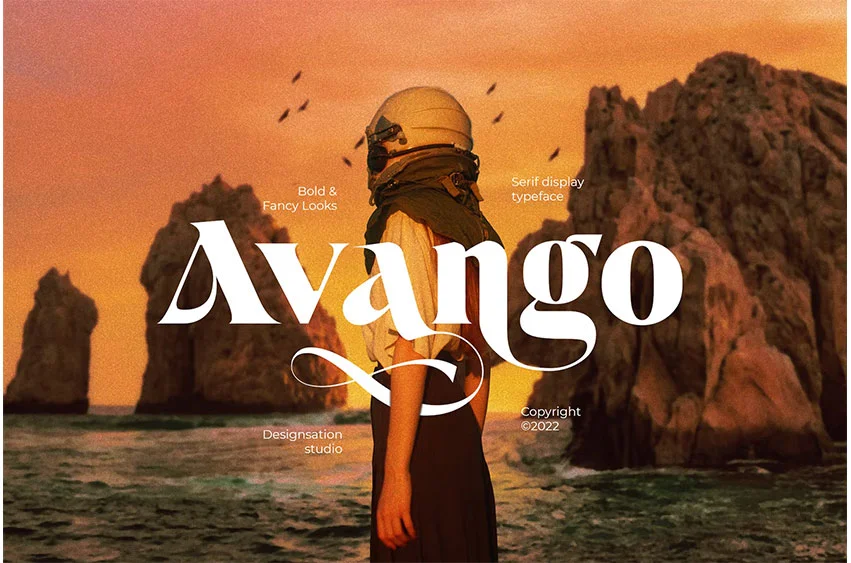
Avango Font
Avango Font Swirly serif typeface comes in 2 styles, regular and oblique. The bold weight shape and some calligraphic touch make this font look pleasing. Another point of this font is on the discretionary ligatures. So exciting and attractive when this font is used for a headline, logo, or any big title as an identity for your project. The Latin character is supported for 90 languages. Europe, Asia, to Oceania. Then, if you are an astronaut, no one can stop you from using this font in space, on the moon, on Mars, or even on the green screen’s Mars. I’ll keep it secret.